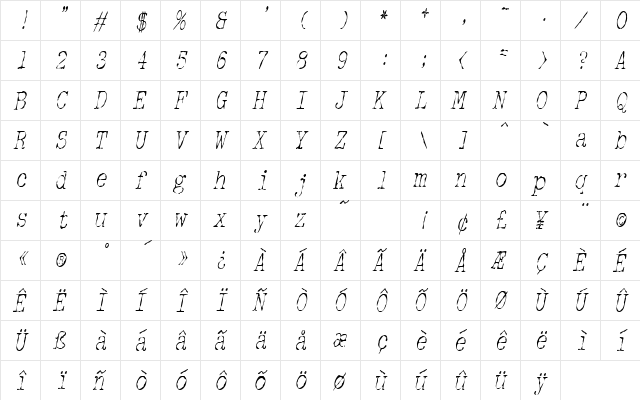
DetectiveCondensed Italic Font Preview
Design Context for DetectiveCondensed Typeface
DetectiveCondensed takes a measured approach to typography — its balanced proportions and neutral character make it a reliable workhorse for both digital and print work. The dynamic lean of this cut emphasises speed and emphasis in any layout. The condensed width makes it efficient for tight spaces without sacrificing legibility.
Pro Tip: Use DetectiveCondensed for emphasis, pull quotes, and subheadings where its slanted energy can add rhythm to the layout.